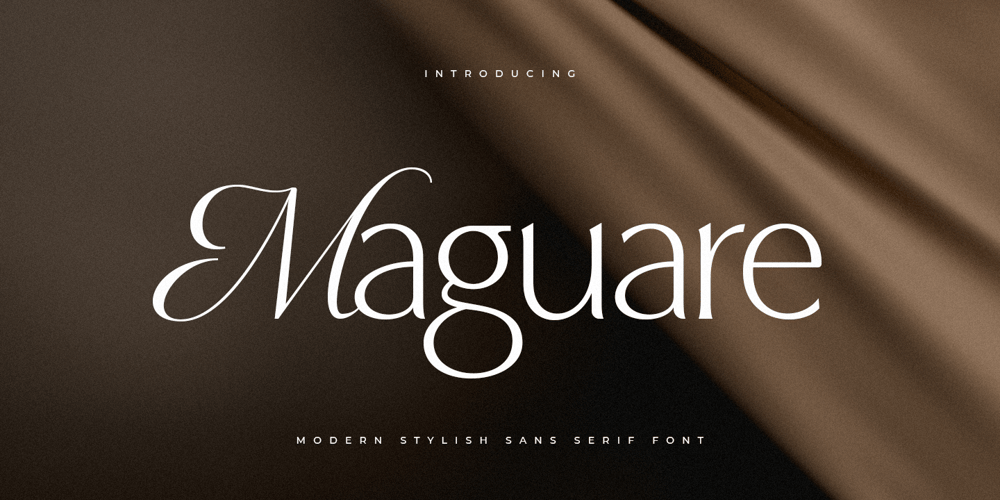
Maguare Style Font Family was designed by Zamroni Hamzah and published by Sensatype Studio. Maguare Style contains 2 styles and family package options. A Modern Stylish Serif Font that we created special for elegant and Fashion branding needs that we created special for elegant branding needs, with extra ligature and alternates in unique shape will be ready to add value of your brand. It so nice to leverage designer or product owner that need solutions to make their design look more classy and modern. And specially for this font, We prepared any ligatures, and any alternate characters to help you create unlimited variations for your creative needs.Maguare Modern Stylish Serif Font ready with: Lowercase and Uppercase characters Numbers and Punctuations Preview as a inspirations that you can do with Foghe font Available for PC and Mac Wish you enjoy our font.